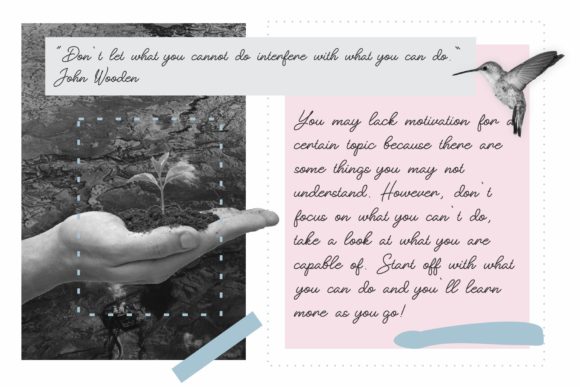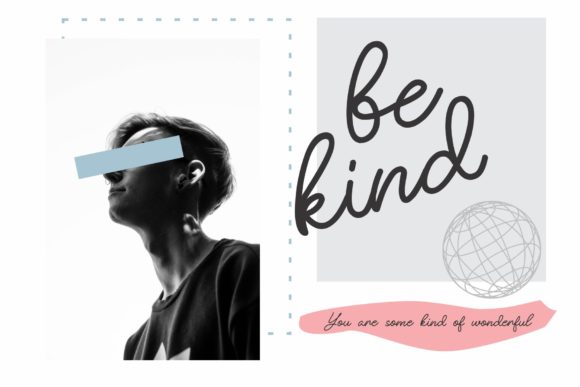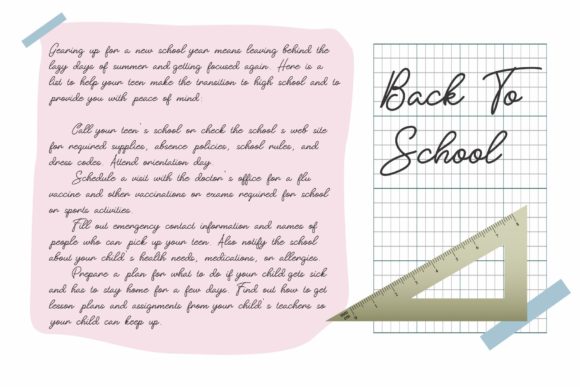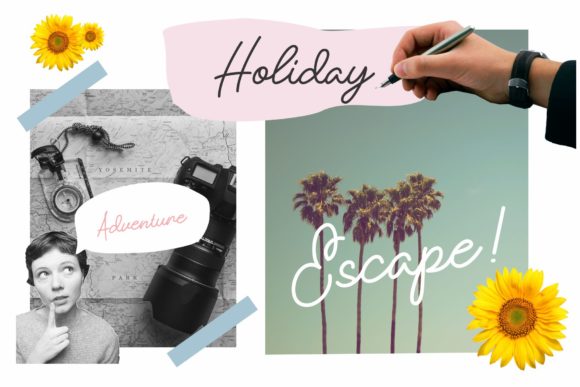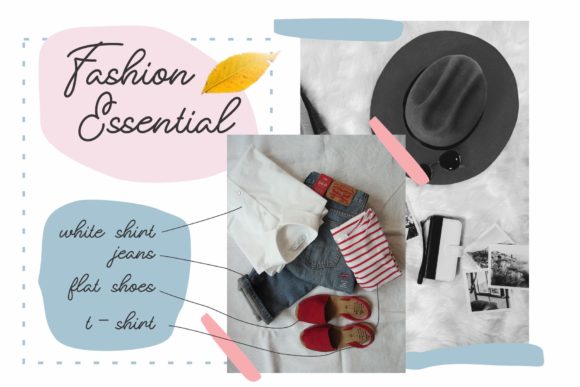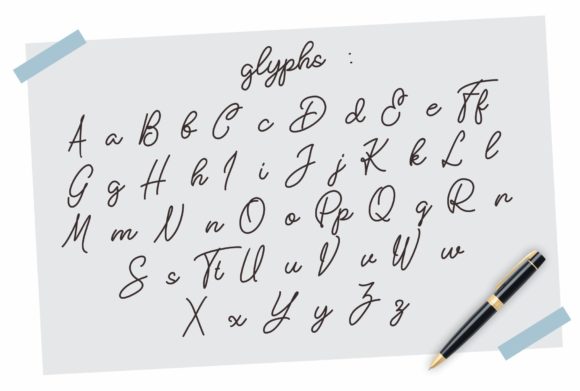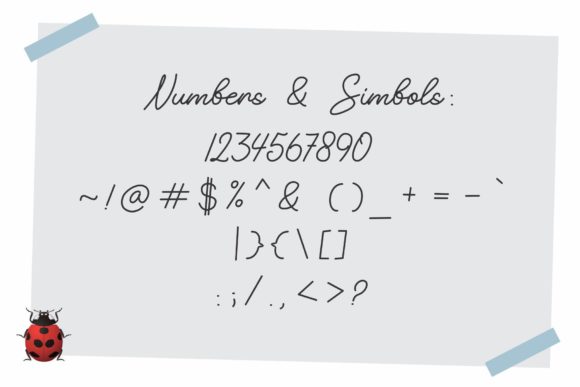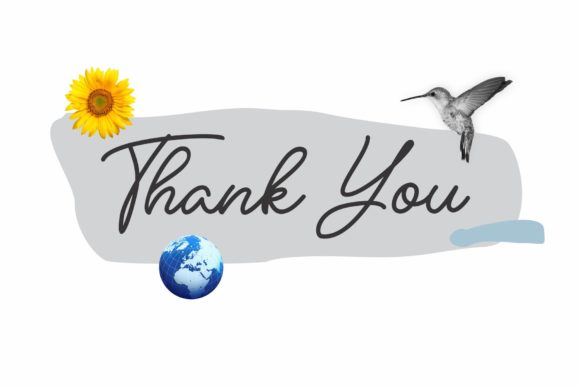
HomeScript FontsTake Notes Font Script Fonts Take Notes Font FacebookXPinterestWhatsApp Take Notes Font Poster 2 Take Notes Font Poster 3 Take Notes Font Poster 4 Take Notes Font Poster 5 Take Notes Font Poster 6 Take Notes Font Poster 7 Take Notes Font Poster 8 Take Notes Font Poster 9 About Take Notes Font Take Notes is a handwritten font with personalized charm. Fall in love with its playful look & feel! DOWNLOAD NOW People also explored Wake Font Halloween Teacher Font Australia Beauty Font Stay Awesome Font Doobam Font Rough Notes Font Salmon Font Gabryela Rohana Font Give Me a Hand Font 264 0 TagsTake Notes Font Previous articleClara FontNext articleGosthel Font LEAVE A REPLY Cancel reply Comment: Please enter your comment! Name:* Please enter your name here Email:* You have entered an incorrect email address! Please enter your email address here Website: Save my name, email, and website in this browser for the next time I comment. Personal Use Free Gunplay Personal Use Free Read more about this font Little Pixel Personal Use Free Read more about this font New Amsterdam Personal Use Free Read more about this font Helsinki Personal Use Free Read more about this font BLOG Using Fonts in Digital Marketing: Tips to Strengthen Your Brand Identity In the realm of digital marketing, every visual element plays a crucial role in shaping a brand's identity, and fonts are no exception. The... Transform Your Website: Elevate Your Typography with 7 Best Web Font Generators How to Install and Use Fonts on Windows, macOS, and Web Projects Best Fonts for YouTube Videos: Make Your Thumbnails Stand Out